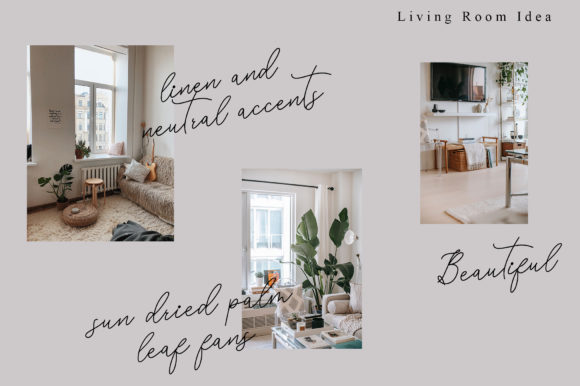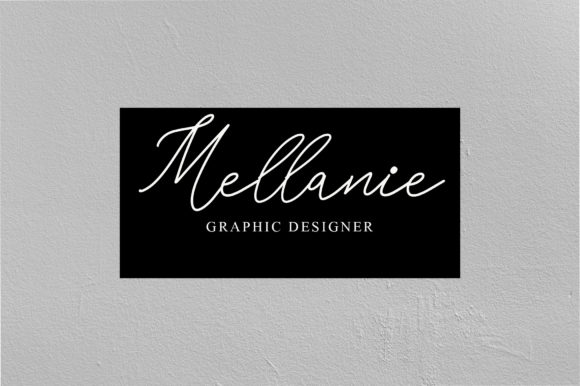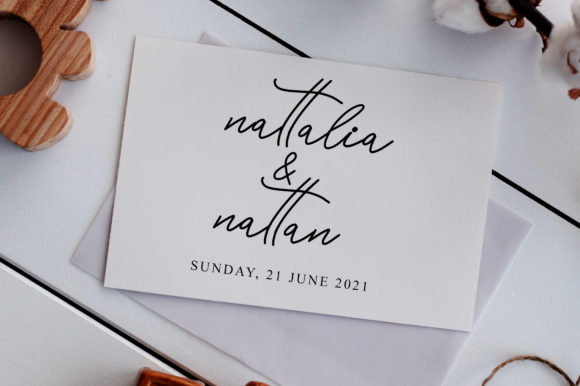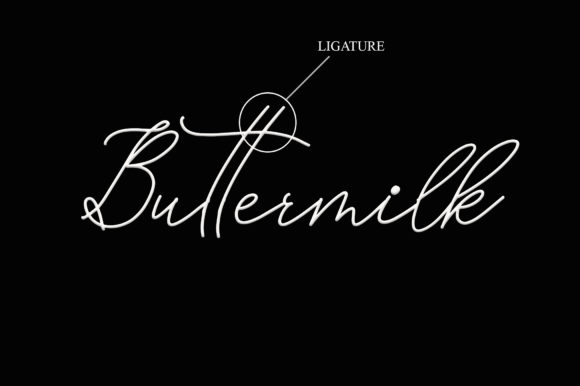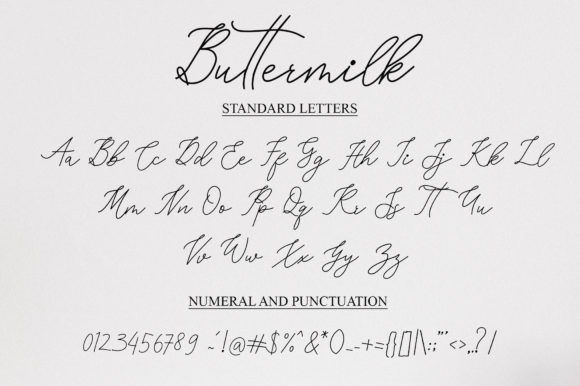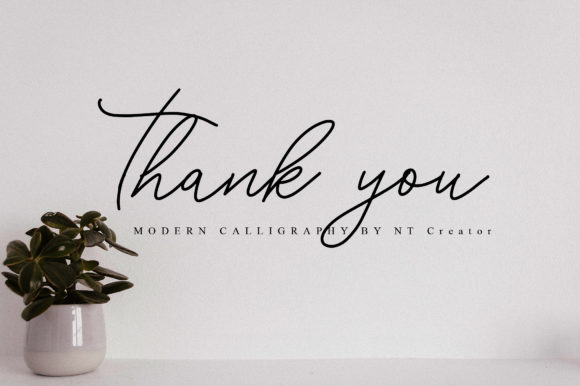
Buttermilk Font: Elevate Your Designs with Elegance and Sophistication
Are you looking for a font that can add a touch of elegance and class to your designs? Look no further than the Buttermilk Font. This lovely and delicate script font is perfect for designers and crafters who want to create beautiful and refreshing designs that stand out from the crowd.
What is Buttermilk Font?
Buttermilk Font is a carefully crafted script font that exudes elegance and sophistication. Its delicate strokes and beautiful lettering make it perfect for a variety of design projects, from wedding invitations and party decorations to branding and advertising materials.
Features of Buttermilk Font
Buttermilk Font has several features that make it a great choice for designers and crafters. Some of its key features include:
• Elegant and Delicate Design: Buttermilk Font has a beautiful and delicate design that is perfect for creating elegant and sophisticated designs.
• Script Font Style: The font has a script style that adds a touch of elegance and class to any design.
• Easy to Read: Despite its delicate design, Buttermilk Font is easy to read, making it perfect for body text and headings.
• Versatile: Buttermilk Font can be used for a variety of design projects, from wedding invitations and party decorations to branding and advertising materials.
Uses of Buttermilk Font
Buttermilk Font is a versatile font that can be used for a variety of design projects. Some of the most popular uses of the font include:
• Wedding Invitations: Buttermilk Font is perfect for creating beautiful and elegant wedding invitations that set the tone for the big day.
• Party Decorations: The font can be used to create beautiful party decorations, such as banners, garlands, and other DIY projects.
• Branding and Advertising: Buttermilk Font can be used for branding and advertising materials, such as logos, business cards, and brochures.
• Stationery: The font can be used to create beautiful stationery, such as notebooks, journals, and greeting cards.
Benefits of Using Buttermilk Font
There are several benefits to using Buttermilk Font in your designs. Some of the most significant benefits include:
• Elegance and Sophistication: Buttermilk Font adds a touch of elegance and sophistication to any design.
• Uniqueness: The font’s delicate design makes it stand out from other fonts, giving your designs a unique and distinctive look.
Buttermilk Font is a beautiful and elegant script font that is perfect for designers and crafters who want to create sophisticated and refreshing designs. Its delicate design, ease of use, and versatility make it a great choice for a variety of design projects. Whether you’re creating wedding invitations, party decorations, or branding and advertising materials, Buttermilk Font is a great choice. So why not give it a try and see how it can elevate your designs?